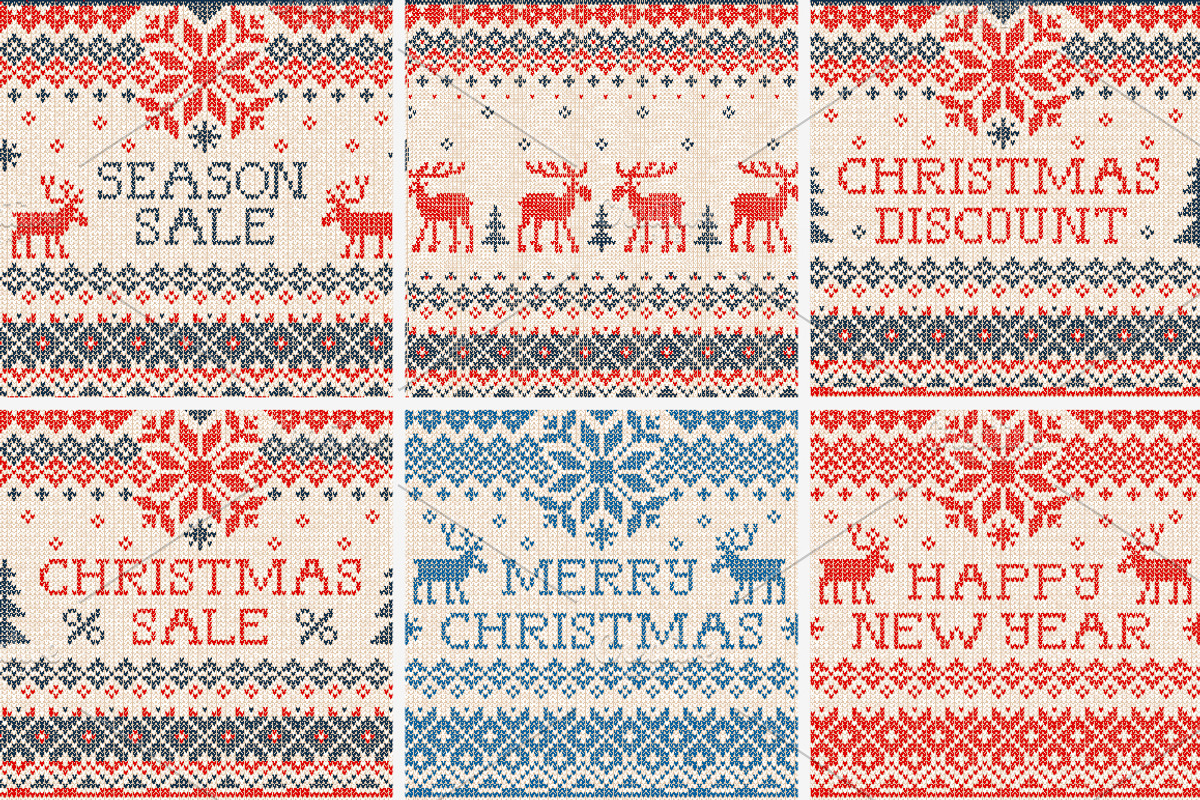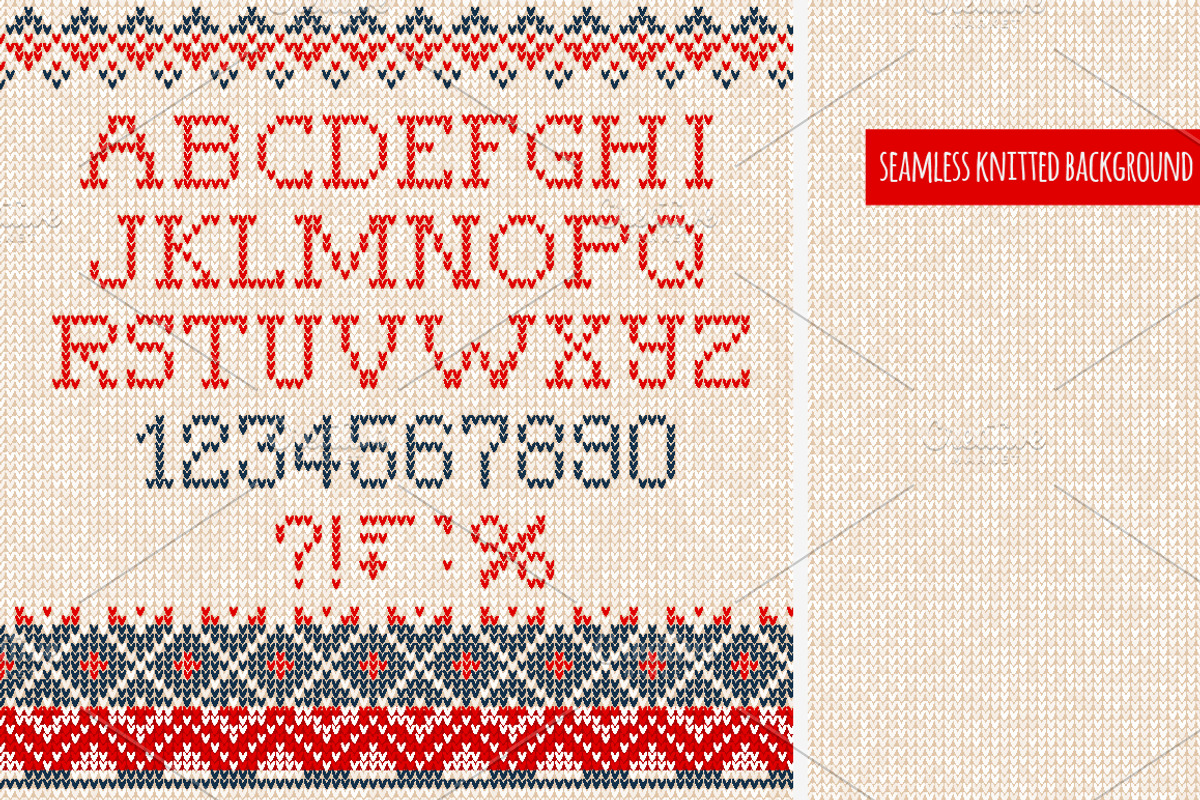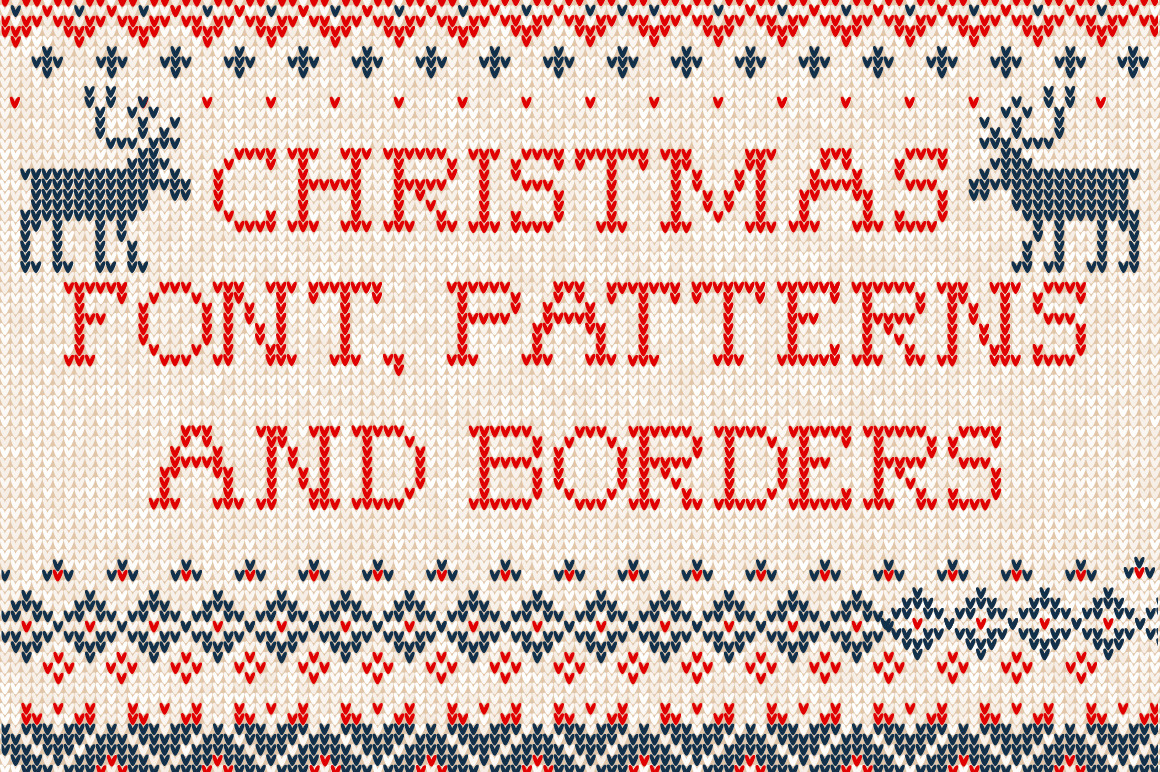
Knitted FONT and patterns (w)
Christmas Set of knitted font, patterns and inscriptions.
Elevate your holiday designs with our exquisite Christmas Set of knitted font, patterns, and inscriptions. Crafted with care, this bundle offers a cozy collection of knitted letters, figures, and punctuation marks. Effortlessly spread the holiday cheer with prepared inscriptions like "Merry Christmas," "Happy New Year," "Christmas Discount", "Christmas Sale", "Season Sale".
Enhance your creations with the charming touch of white seamless knitted backgrounds, adorned with classic Scandinavian ornaments. These seamless patterns cover large areas without sacrificing quality, ensuring your designs look impeccable.